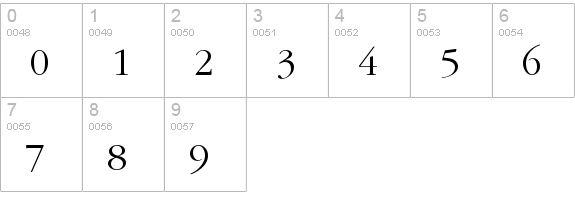
PFGaramondText Light is a refined, elegant variant in the PFGaramondText typeface family \xE2\x80\x94 well suited to elegant body text, refined sub-headings, and luxury branding.
PFGaramondText Light font is a stunning and elegant typeface that exudes sophistication and class. Its delicate serifs and graceful curves make it perfect for adding a touch of refinement to any project. This font is ideal for use in body text, headlines, and other design elements where a light and airy feel is desired. What makes PFGaramondText Light font even more appealing is that it is available for free download at FontsMarket.com. This means that you can easily access this beautiful font and use it in your projects without any cost. Whether you are working on a personal creative endeavor or a professional design project, PFGaramondText Light font is sure to elevate your work and leave a lasting impression on your audience. Download this exquisite font today and bring a touch of timeless elegance to your designs.